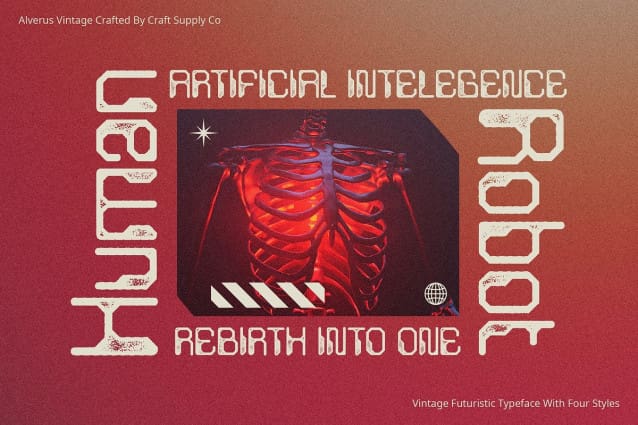
Alverus Vintage Font
Alverus Vintage Font: Bridging Future Technology and Vintage Vibes. Futuristic Inspiration Alverus Vintage draws inspiration from future technology, incorporating sleek and innovative design elements into its display aesthetic. The font captures the essence of cutting-edge advancements, offering a glimpse into tomorrow’s possibilities.
Stamp Effect With a unique stamp effect, This font exudes a sense of nostalgia and vintage charm. This effect adds texture and depth to each character, creating an intriguing visual appeal reminiscent of classic stamped lettering.
Vintage Vibes for Display Despite its futuristic inspiration, This font boasts vintage vibes that make it perfect for display purposes. Whether used in posters, banners, or digital interfaces, the font commands attention and evokes a sense of nostalgia.
Versatile Application This font is highly versatile, lending itself to a wide range of design projects. From branding and advertising to editorial layouts and web design, the font adds a unique touch that sets your creations apart.
Fusion of Future and Vintage This font seamlessly blends futuristic design elements with vintage aesthetics, offering a versatile font that captivates audiences with its unique charm. Whether conveying a sense of innovation or evoking nostalgia, Alverus Vintage delivers striking results in any design endeavor.